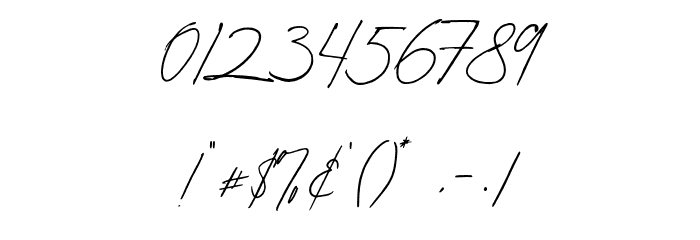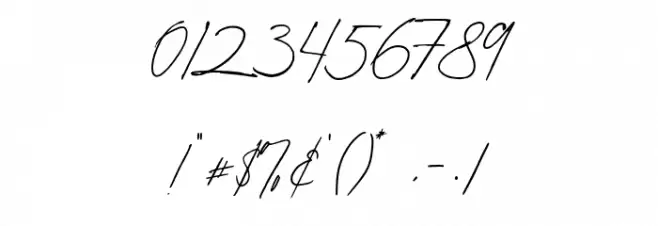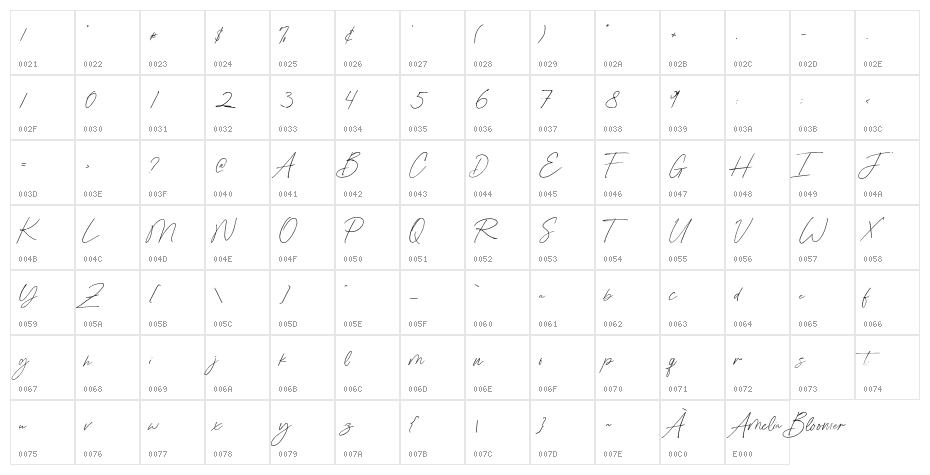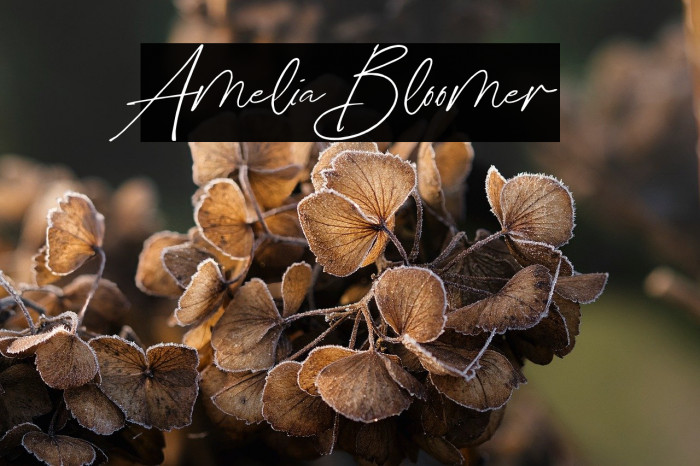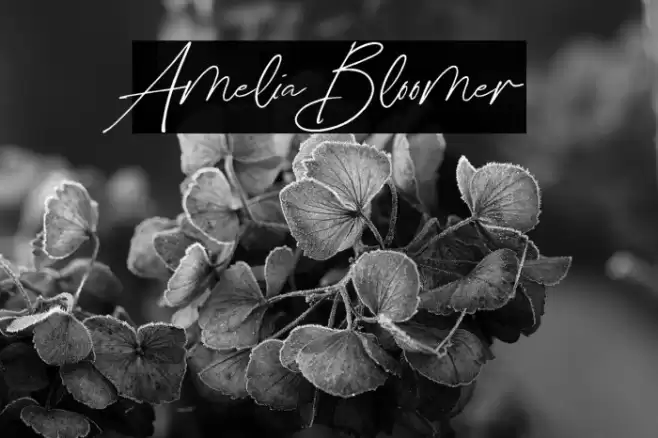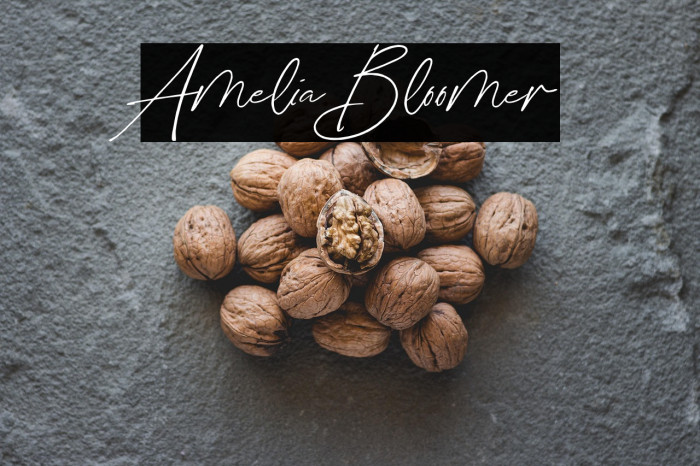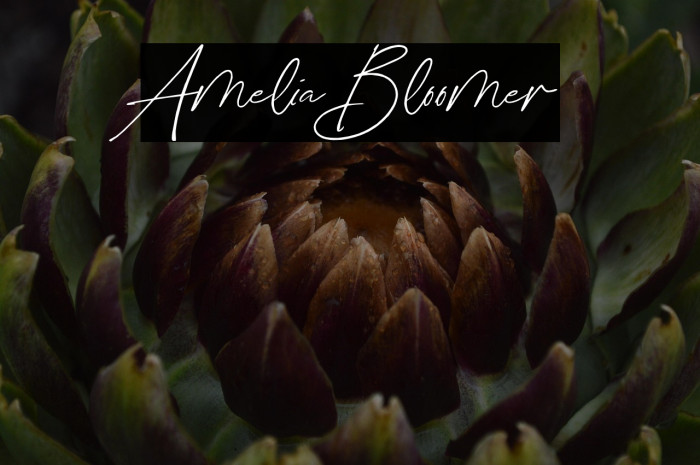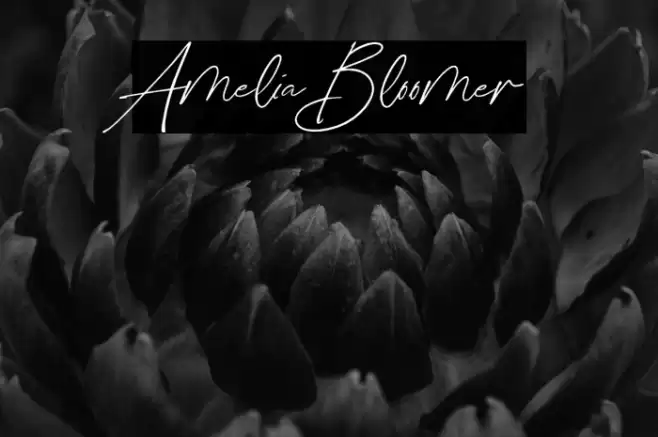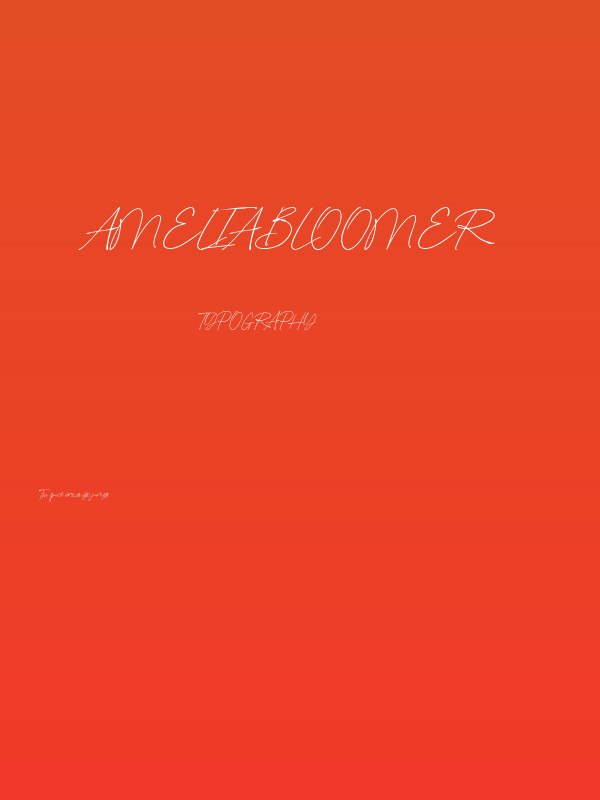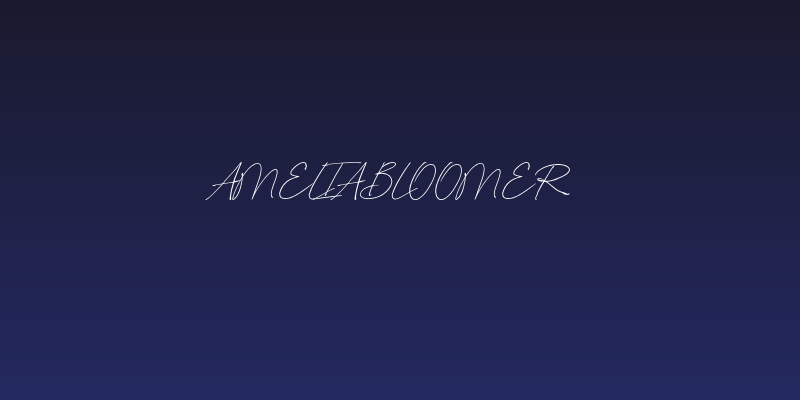
Amelia Bloomer Font
Amelia Bloomer Description
This font exudes elegance and fluidity, characterized by its cursive, handwritten style. The letters are connected with smooth, flowing strokes, giving it a natural and personal touch. The uppercase letters are tall and slightly slanted, while the lowercase letters maintain a consistent flow, enhancing readability. The numerals and special characters are crafted with the same attention to detail, ensuring a cohesive look across all characters. This font is perfect for projects that require a personal, yet sophisticated touch.
| Proposed Projects | Ideal for wedding invitations, personal branding, greeting cards, and elegant stationery. |